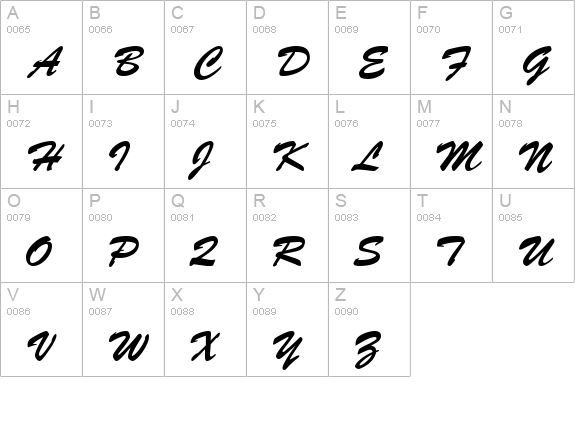
Motif Script SSi font is a visually stunning and elegant typeface that exudes sophistication and charm. Its intricate and fluid script style adds a touch of luxury to any design project, making it perfect for invitations, branding, and other creative endeavors. The graceful curves and intricate details of this font give it a timeless appeal that is sure to captivate any audience. What makes Motif Script SSi font even more appealing is the fact that it is available for free download at FontsMarket.com. This means that you can easily access this beautiful font and use it in your projects without any cost. With its free availability, you can add a touch of class and elegance to your designs without breaking the bank. Whether you're looking to create stunning wedding invitations, eye-catching logos, or elegant packaging, Motif Script SSi font is the perfect choice. Download it for free today and elevate your design projects to new heights of sophistication and style.